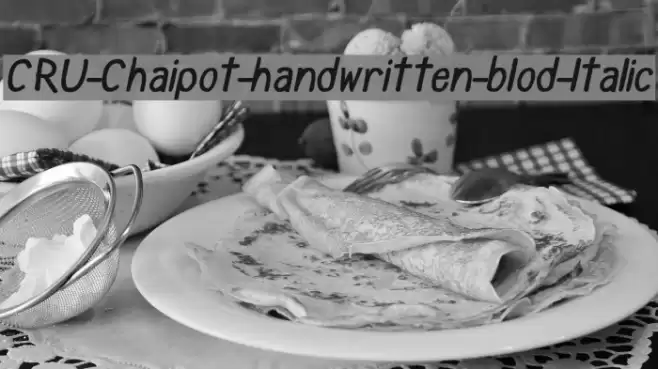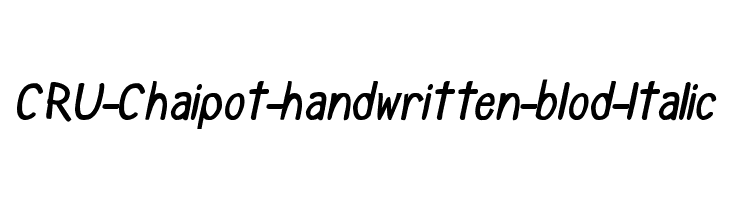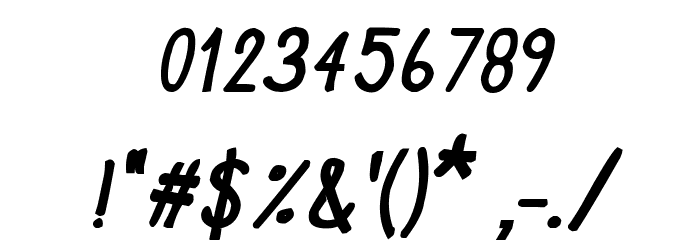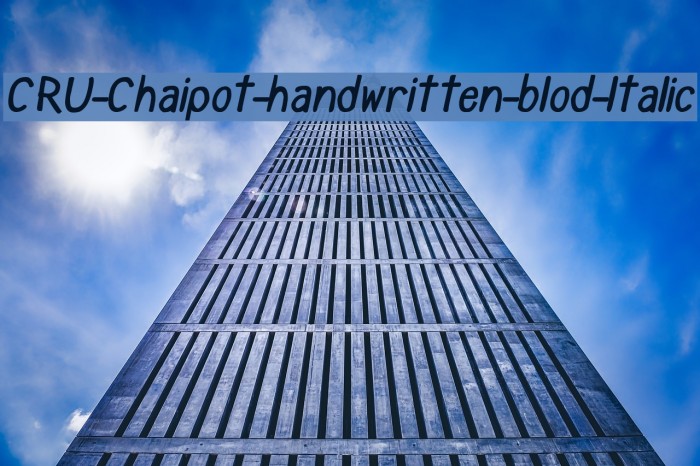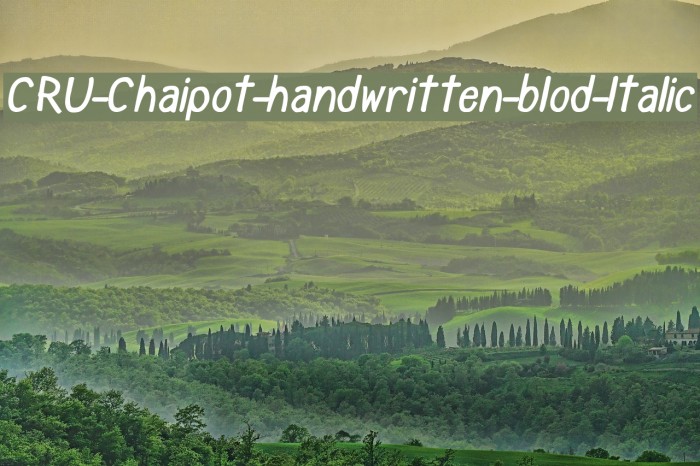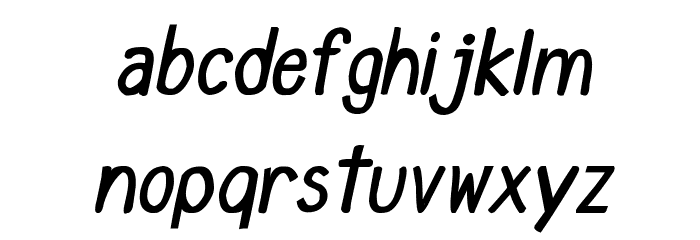
CRU-Chaipot-handwritten-blod-ltalic Font
CRU-Chaipot-handwritten-blod-ltalic Description
This font features a playful and casual handwritten style, characterized by its bold and italicized appearance. The letters are slightly slanted, giving it a dynamic and informal feel. The strokes are consistent in thickness, providing a uniform look across all characters. The uppercase and lowercase letters maintain a cohesive style, with rounded edges and smooth curves. The numerals and special characters are designed to match the overall aesthetic, ensuring a harmonious appearance throughout. This font is ideal for projects that require a personal touch, such as invitations, greeting cards, or creative branding.
A bold, italicized handwritten font with a playful and casual style from Uncategorized fonts.
- Proposed Projects: Ideal for invitations, greeting cards, creative branding, and personal projects.
- Overall Style: Casual, Playful
- Use Case: Headlines, Logos, Invitations